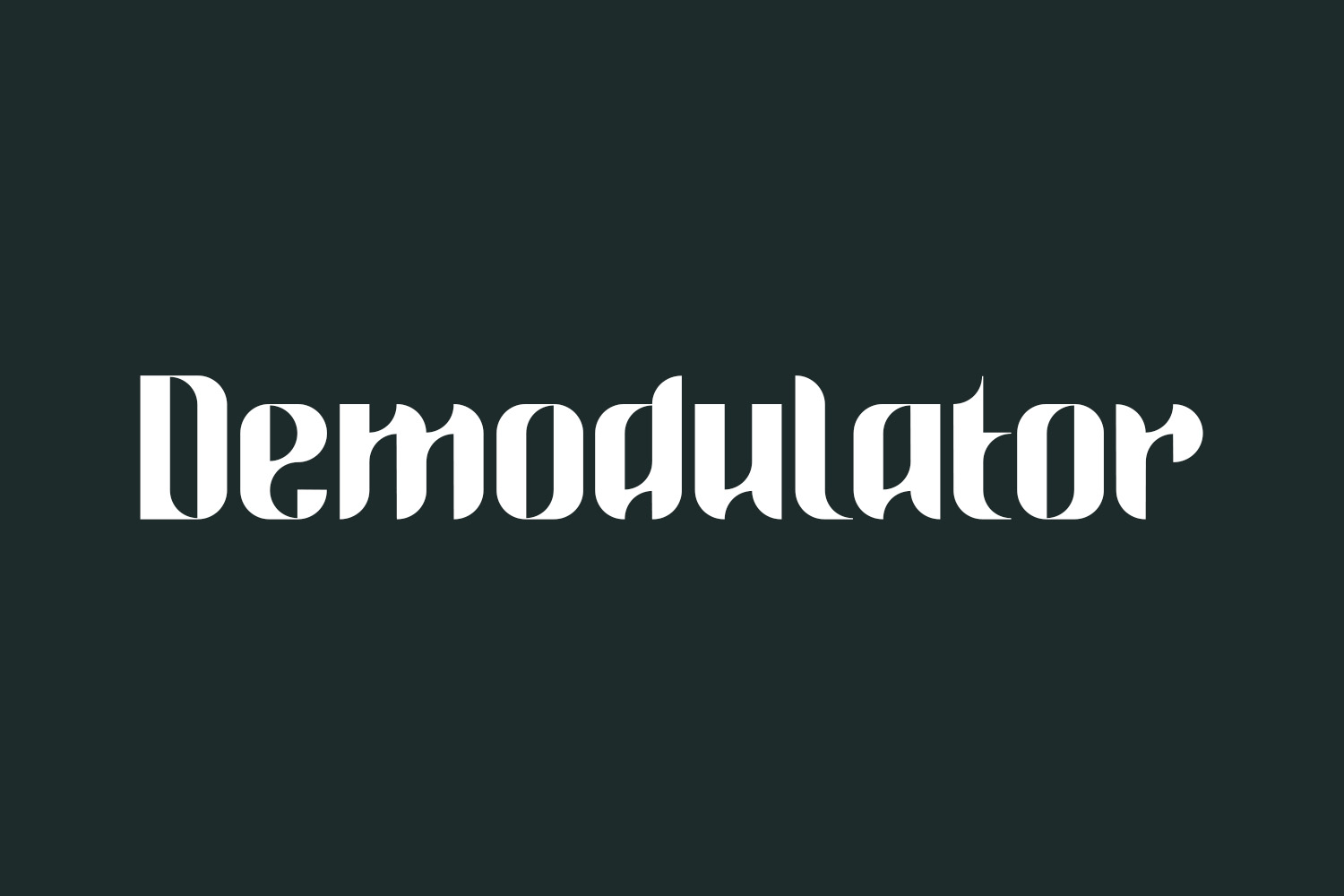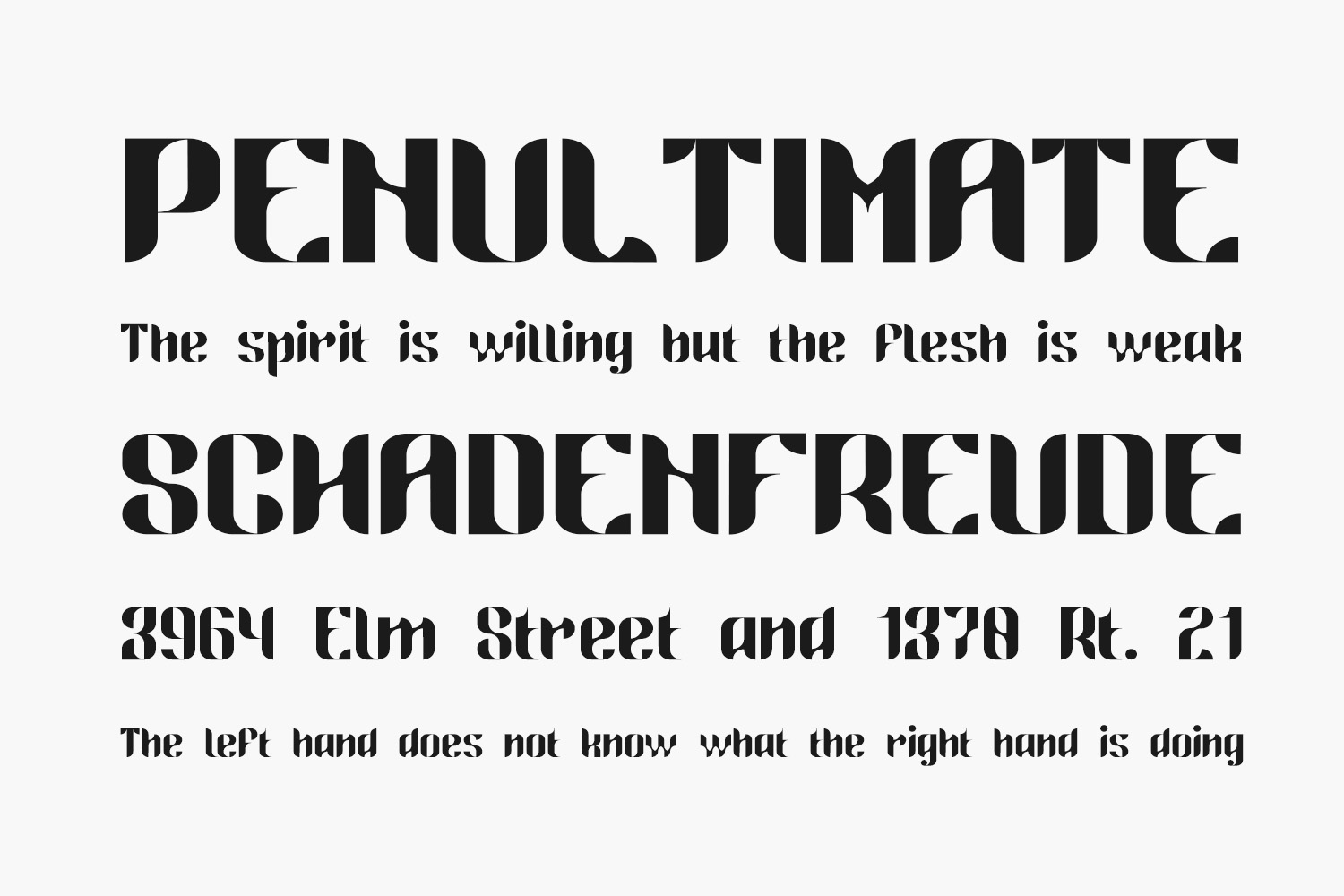
Demodulator Free Font Family is a modular variable font with a futuristic look and feel. Use this streamlined typeface for posters and headings where you want some extra impact and character. Demodulator Free Font Family was designed by Thor Christopher Arisland and is free for personal use only. Please purchase the full version for commercial use.
Designed by Thor Christopher Arisland